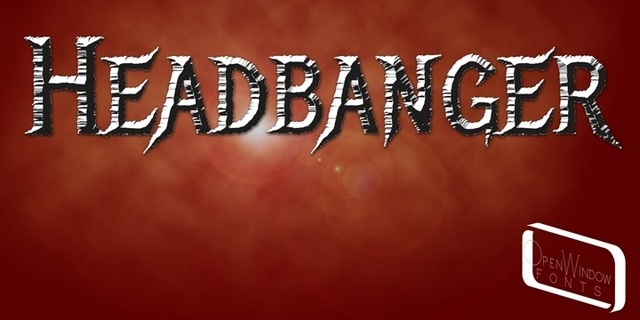
Headbanger Font
Headbanger Font is perfect for heavy metal band logos, rock concert posters, metal music festivals, hard rock album covers, metal merchandise design, heavy music magazine layouts, rock club signage, extreme sports branding, motorcycle gear graphics, tattoo shop materials, metal festival banners, and aggressive projects that require powerful, metal-inspired typography with rebellious energy and rock authenticity.
What makes Headbanger Font so exciting is its explosive metal energy and rebellious rock spirit that embodies the raw power and uncompromising attitude of heavy metal music and rock culture. This typeface features bold, aggressive letterforms with metal-inspired characteristics and rebellious details that evoke the thunderous sound of electric guitars, pounding drums, and the kind of high-energy rebellion that defines authentic rock and metal culture. The font's metal character and rock appeal make it perfect for music brands and rebellious projects that want to communicate power, authenticity, and the kind of unfiltered energy that resonates with rock and metal audiences seeking genuine musical rebellion.
Headbanger Font typically comes in multiple weights and styles including Regular, Bold, Distressed, and Ultra variations. Many versions also include metal ornaments, rock symbols, and rebellious decorative elements that enhance the font's metal functionality and provide designers with comprehensive tools for creating authentic, metal-inspired typography compositions that capture the raw energy of rock and metal culture.
Whether you're designing metal band materials, rock concert promotions, or rebellious brand communications, Headbanger Font delivers exceptional metal authenticity and rock energy that connects with audiences who live for heavy music and authentic rebellion. Its aggressive, powerful appearance works exceptionally well in large display applications where its metal details can create maximum visual impact and rock credibility for true metal fans.
The aggressively crafted letterforms of Headbanger Font showcase the ultimate expression of metal typography and rock design principles. Each character has been forged to convey the raw power and rebellious spirit of heavy metal while maintaining excellent readability, ensuring that your metal communications capture the thunderous energy and uncompromising attitude that defines authentic rock and metal culture for devoted headbangers.